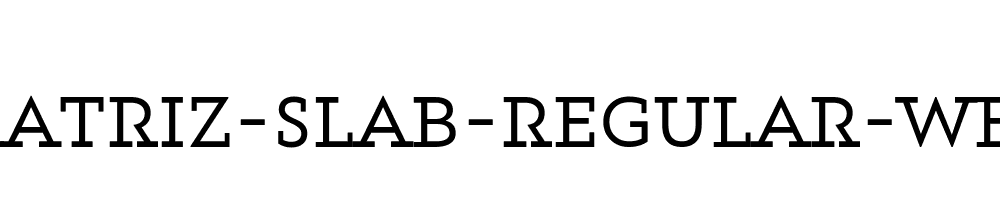
emperatriz-slab-regular-webfont
About emperatriz-slab-regular-webfont
The font “emperatriz-slab-regular-webfont” has a distinctive look that sets it apart from others in its family. With strong arms and a sturdy stem, this font exudes a sense of reliability and strength. The sharp apex and precise joints give it a bold and determined appearance, making it suitable for projects that require a touch of seriousness. The closed counters and elegant brackets add a touch of sophistication to its overall design, making it an excellent choice for formal documents or invitations.
Despite its rigid structure, this font manages to maintain a sense of warmth and approachability through its friendly shoulder and gentle arc. The bilateral serifs and smooth ascenders give it a familiar feel, making it easy on the eyes and inviting to read. Its subtle spurs and graceful overhang create a timeless elegance that is both classic and progressive, making it versatile enough for a wide range of projects.
In terms of expressiveness, the font falls somewhere in between neutral and elegant, striking a delicate balance between seriousness and sophistication. Its organic shapes and technical precision make it ideal for projects that require a touch of both precision and creativity, making it a perfect choice for branding or logo design. With its warm undertones and discreet serifs, this font is sure to make a statement without overpowering the message it conveys. Whether you need a font that exudes confidence or one that is warm and welcoming, the “emperatriz-slab-regular-webfont” has you covered.